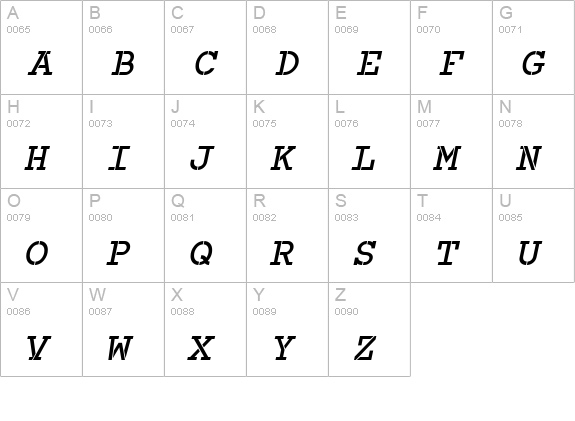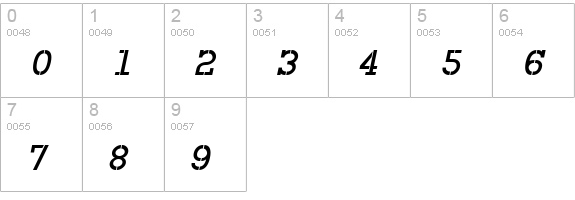
Combat Ready BTN Oblique is a distinctive, italic variant in the Combat typeface family \xE2\x80\x94 well suited to design and typography projects.
Combat Ready BTN Oblique font is a bold and commanding typeface that exudes strength and power. With its angled slant and sharp edges, this font conveys a sense of readiness for battle and action. The sturdy letterforms make a striking impact, perfect for conveying a sense of urgency and boldness in your designs. What sets Combat Ready BTN Oblique font apart is that it is not only visually impactful but also versatile and easy to read. Whether you're creating posters, banners, logos, or any other design project that requires a touch of boldness, this font will deliver. And the best part? Combat Ready BTN Oblique font is available for free download at FontsMarket.com. So go ahead and add this powerful typeface to your font collection today and unleash its energy in your designs.